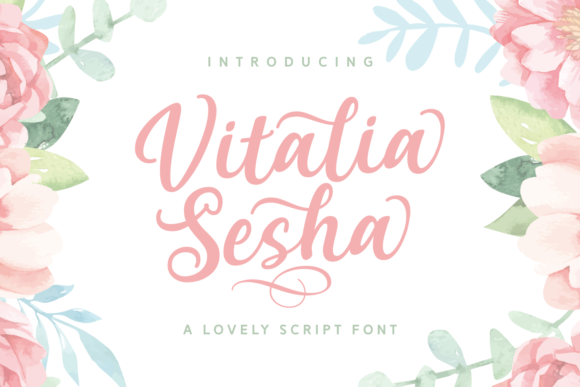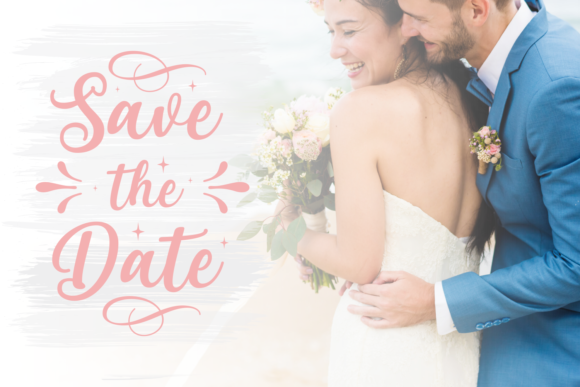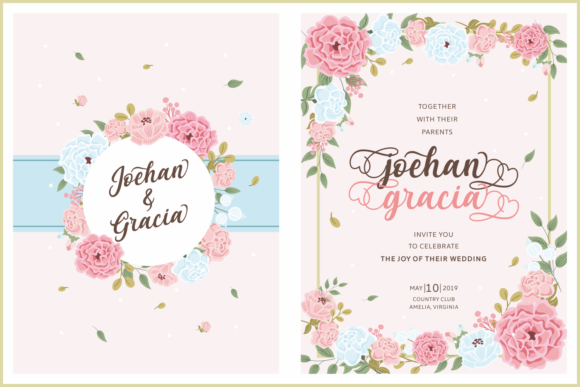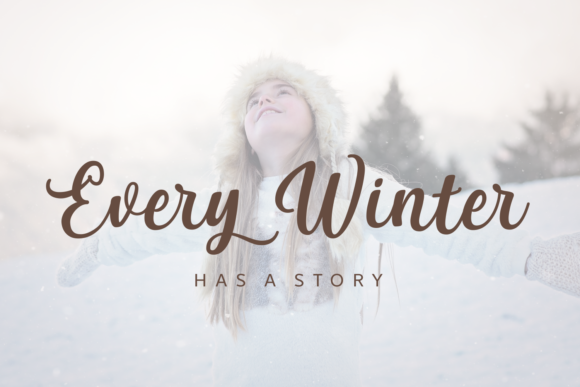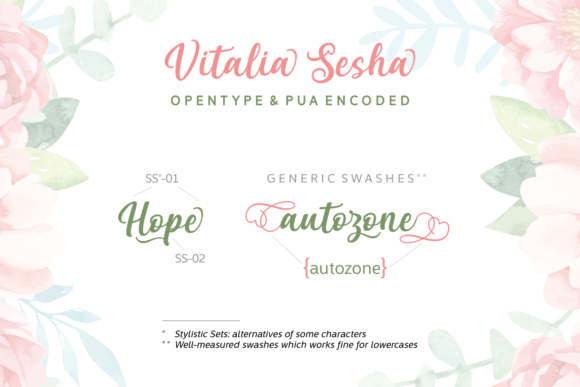
Vitalia Sesha Font
About Vitalia Sesha Font
The Vitalia Sesha font is a gorgeous calligraphy font packed with stunning swashes and swooshes.
This font will make any design light up in an instant. It’s perfect for creating high quality, personalized designs such as small store branding, wedding invites, valentine cards and much more.